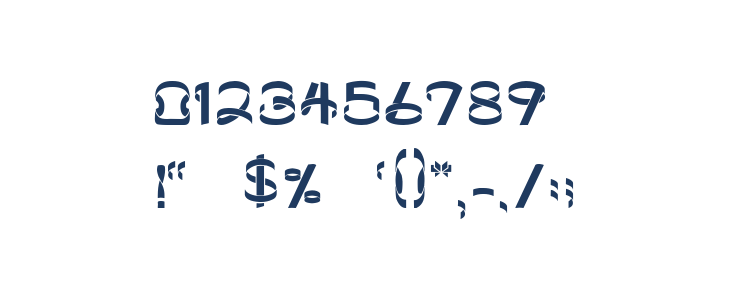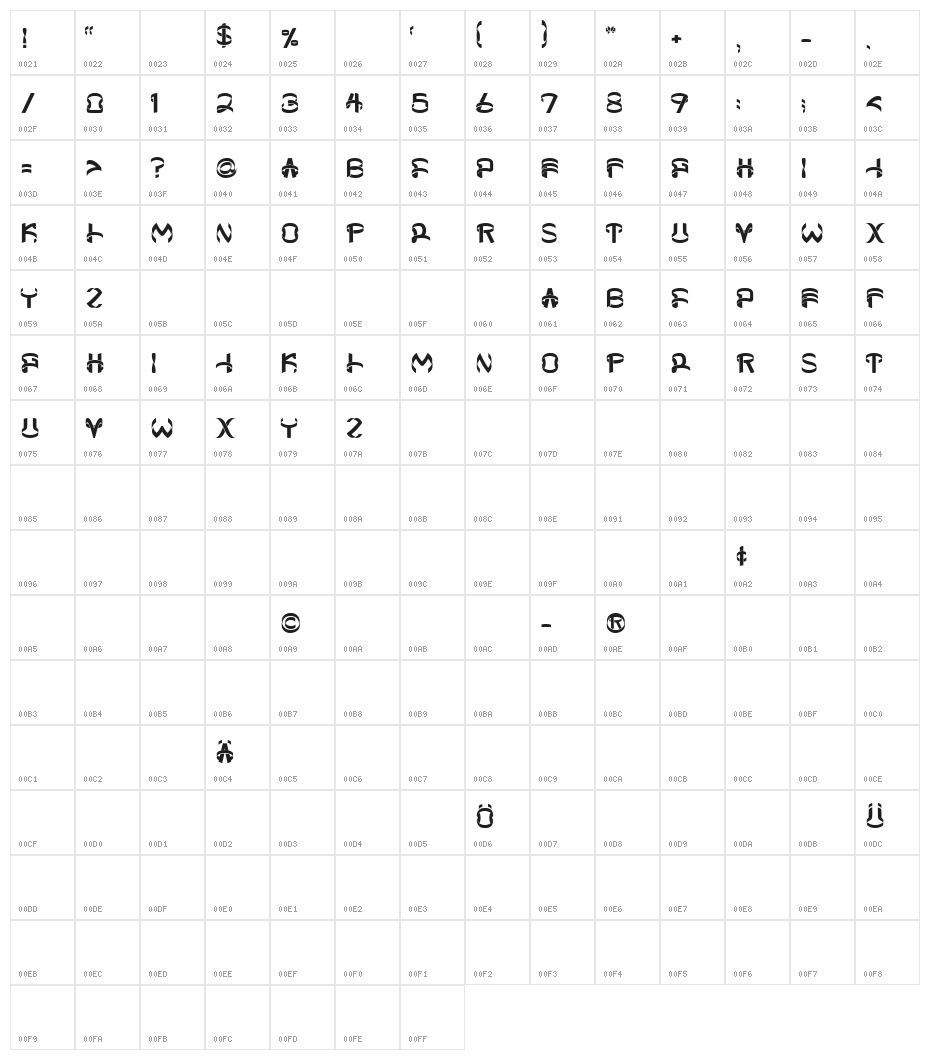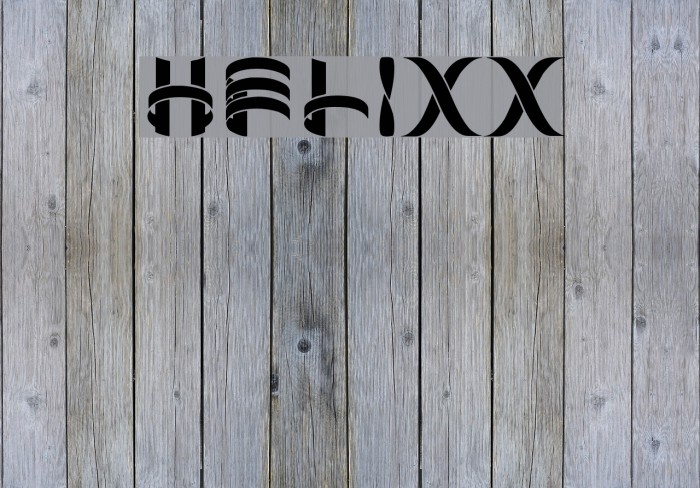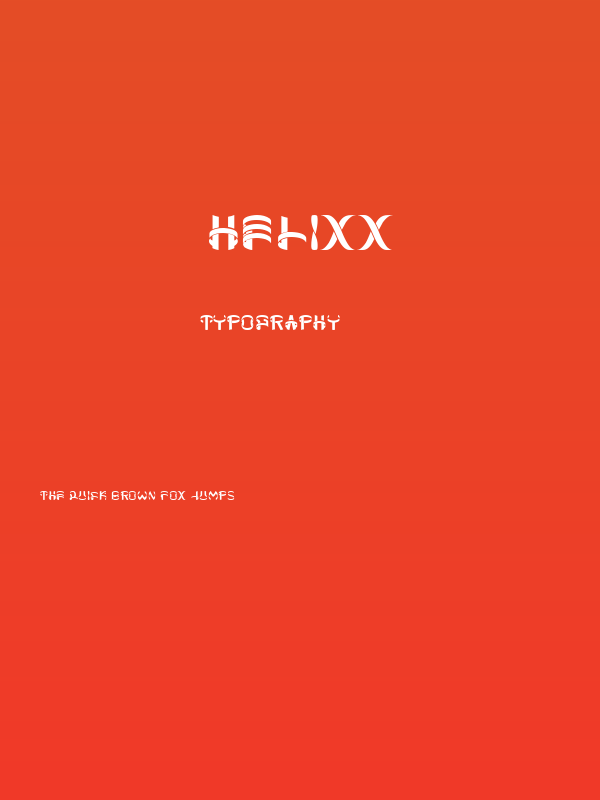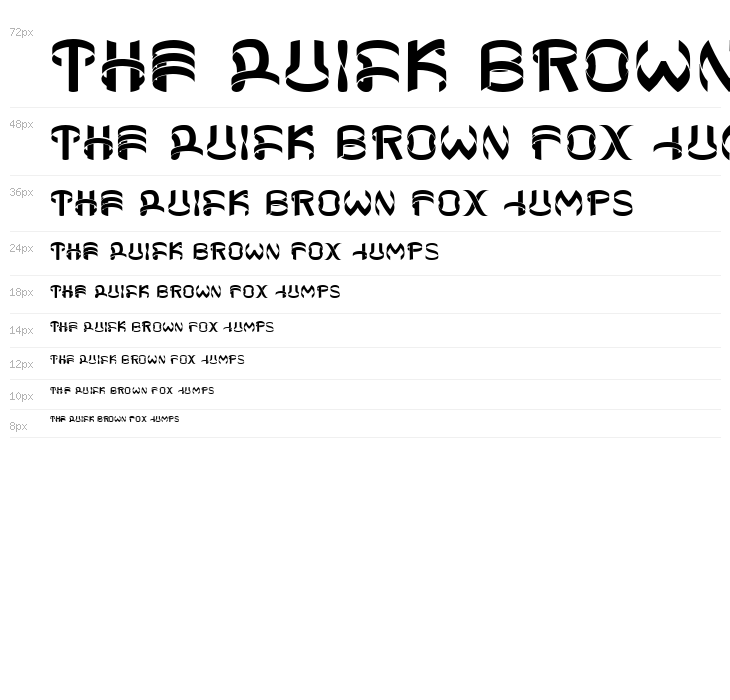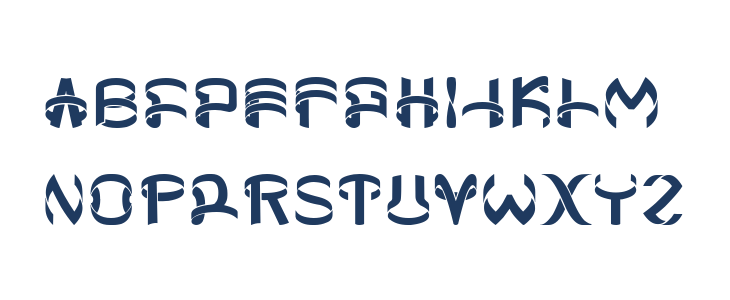
helixx Font
helixx Description
This font features a bold, futuristic design with a unique, segmented appearance. Each character is composed of distinct, separated sections that create a striking visual effect. The uppercase and lowercase letters maintain a consistent style, with rounded edges and a sense of movement. The numbers and special characters follow the same design principles, ensuring uniformity across the typeface. This font's innovative style makes it ideal for projects that require a modern and eye-catching aesthetic.
| Proposed Projects | Ideal for sci-fi themed projects, tech branding, video game titles, and modern advertising campaigns. |